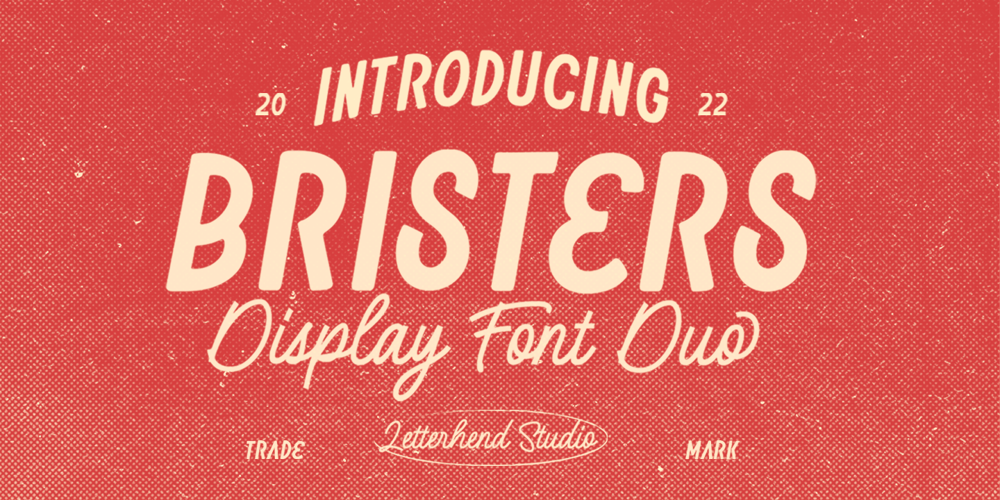
The Bristers Sans
The Bristers Sans font
The Bristers Sans Font Family was designed by Hendry Juanda and published by Letterhend. The Bristers Sans contains 2 styles and family package options. Bristers is a font duo package contain a hand drawn monoline script and sans serif which looks great to be paired especially for vintage and adventure theme! It also comes with extra illustration and premade logo! This font duo is purposely made for headline, display or logotype, and signature which need a standout appearing. This font is also suitable to be applied especially in logo, and the other various formal forms such as invitations, labels, logos, magazines, books, greeting / wedding cards, packaging, fashion, make up, stationery, novels, labels or any type of advertising purpose.Features :- Bristers Sans & Script- uppercase & lowercase- numbers and punctuation- multilingual- alternates & ligatures- PUA encodedWe highly recommend using a program that supports OpenType features and Glyphs panels like many of Adobe apps and Corel Draw, so you can see and access all Glyph variations. How to access opentype feature : letterhend.com/tutorials/using-opentype-feature-in-any-software/Email us to letterhend@gmail.com if you need something! Happy Designing!